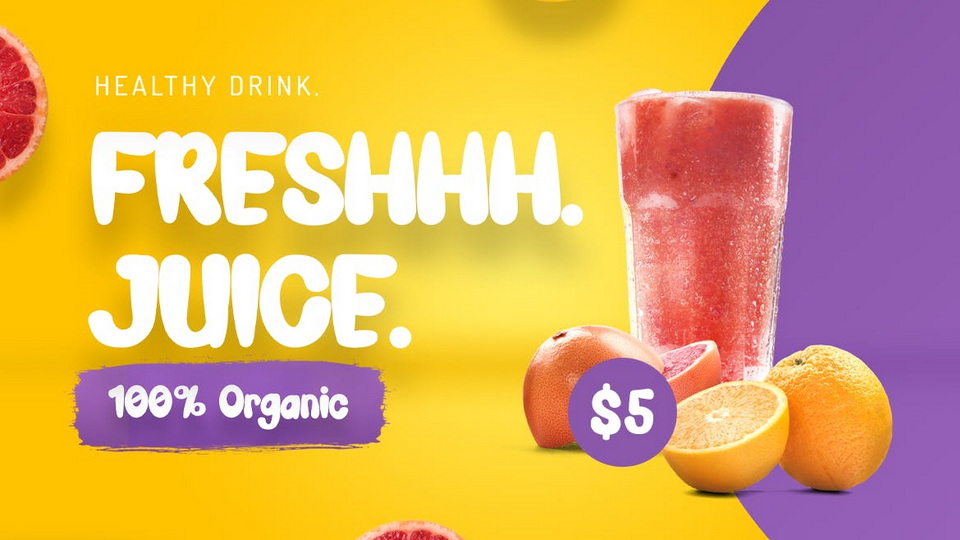
Fruit Juicer Font . This font, created by darrell flood, is free to use for personal use. Fruit juicer is a fancy type. Fruit juicer is a free font for personal use created by pinisiart. Perfect for designing menus, logos, and food blogs. By installing this font, you acknowledge and accept the product usage agreement below: Fruit juicer is licensed under the 1001fonts free for personal use license (ffp) Add a zest of creativity today! ~~ free for personal usage. Explore our vibrant, refreshing 'free fruit, juice fonts'. Download and install the fruit juicer font by pinisiart. Fruit juicer font download is available free from fontget. This means you can use it for. The fruit juicer font has been downloaded 4,335 times.
Fruit Juicer Font Fruit juicer is a fancy type. Fruit juicer font download is available free from fontget. This font, created by darrell flood, is free to use for personal use. Fruit juicer is a fancy type. This means you can use it for. ~~ free for personal usage. By installing this font, you acknowledge and accept the product usage agreement below: Fruit juicer is a free font for personal use created by pinisiart. Explore our vibrant, refreshing 'free fruit, juice fonts'. Perfect for designing menus, logos, and food blogs. Fruit juicer is licensed under the 1001fonts free for personal use license (ffp) Download and install the fruit juicer font by pinisiart. Add a zest of creativity today! The fruit juicer font has been downloaded 4,335 times.
Fruit Juicer Font Download Free for Desktop & font Fruit Juicer Font The fruit juicer font has been downloaded 4,335 times. Explore our vibrant, refreshing 'free fruit, juice fonts'. This font, created by darrell flood, is free to use for personal use. Download and install the fruit juicer font by pinisiart. Fruit juicer is a free font for personal use created by pinisiart. Add a zest of creativity today! Fruit juicer is. Fruit Juicer Font.
Orange Juice Font by Nirmala Creative · Creative Fabrica Fruit Juicer Font ~~ free for personal usage. Explore our vibrant, refreshing 'free fruit, juice fonts'. Perfect for designing menus, logos, and food blogs. The fruit juicer font has been downloaded 4,335 times. By installing this font, you acknowledge and accept the product usage agreement below: This font, created by darrell flood, is free to use for personal use. Add a zest of. Fruit Juicer Font.
Fruit Juice Lofu Font by TanoiCartoonist · Creative Fabrica Fruit Juicer Font Download and install the fruit juicer font by pinisiart. Perfect for designing menus, logos, and food blogs. Fruit juicer is licensed under the 1001fonts free for personal use license (ffp) Fruit juicer font download is available free from fontget. The fruit juicer font has been downloaded 4,335 times. This font, created by darrell flood, is free to use for personal. Fruit Juicer Font.